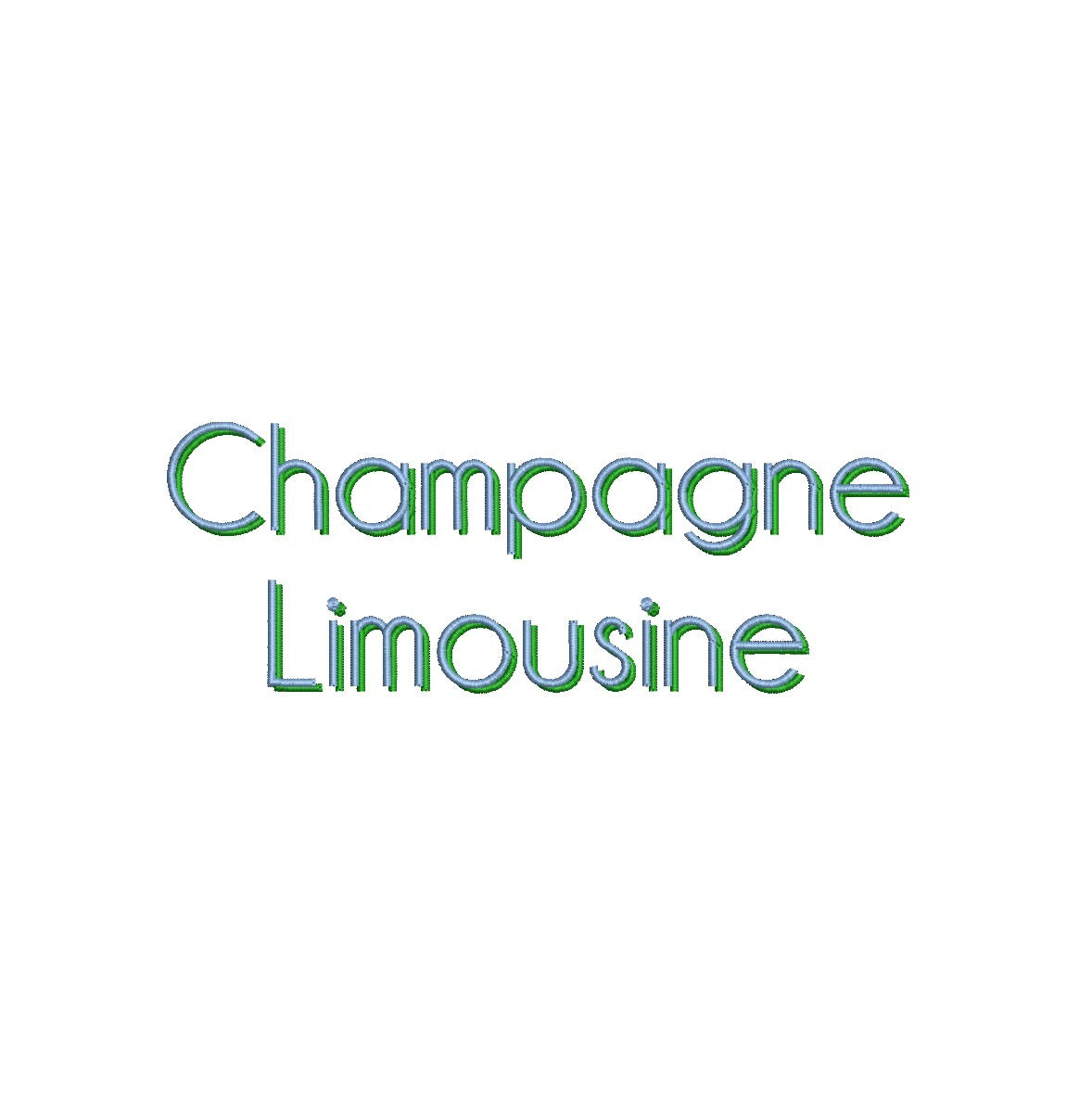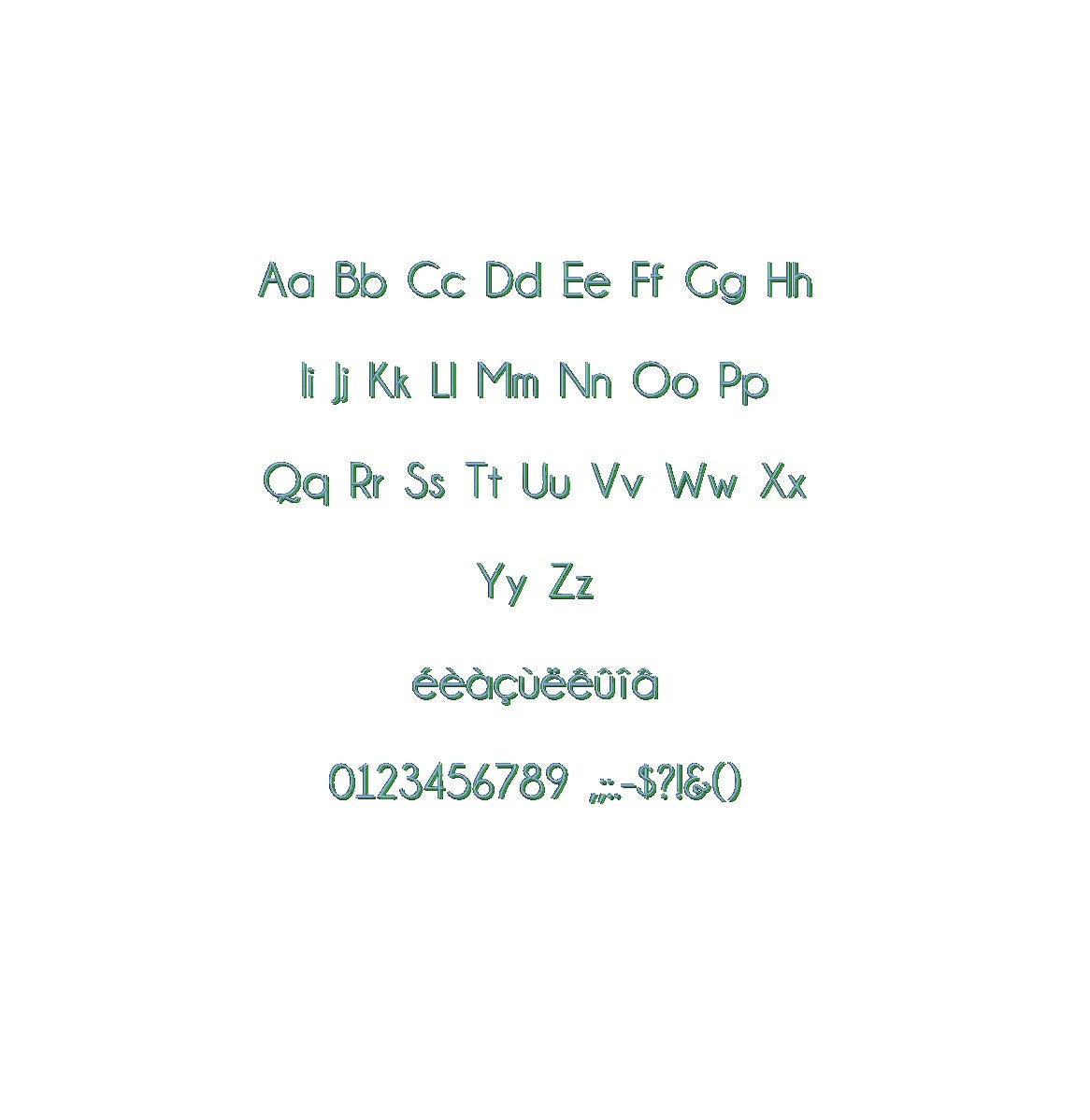
Elevate your designs with the luxurious Champagne Limousine Shadow ESA font. Fully compatible with Wilcom Studio e4.5.6 and Hatch 3 versions and up, this font exudes opulence and refined elegance. The intricate shadows and sleek lines of this font impart a sense of sophistication and exclusivity to your projects. Streamline your creative process and achieve flawless results by using this font with industry-leading software. Upgrade your projects with the compatibility of Champagne Limousine Shadow ESA font and create visuals that radiate luxury. Embrace the epitome of elegance for your design journey today!